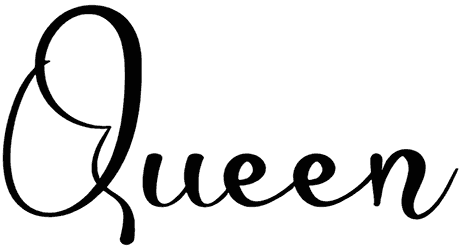
Queen Font
This soft vintage collection calls you to go where you’ve never been before. Queen font is versatile, smooth, and decorative. This elegant script font uses a cursive pattern to give an air of distinction to its feminine lines.
It can be a perfect set for designing perfume, cosmetic products, and gifts. This queen font is perfect for romance and love cards, wedding invitations, postcards, and so on.
Queen is a beautiful and ageless script font. It has a classy, elegant and modern look that can be used for logos, branding, invitations, stationery, wedding designs, social media posts, and much more!